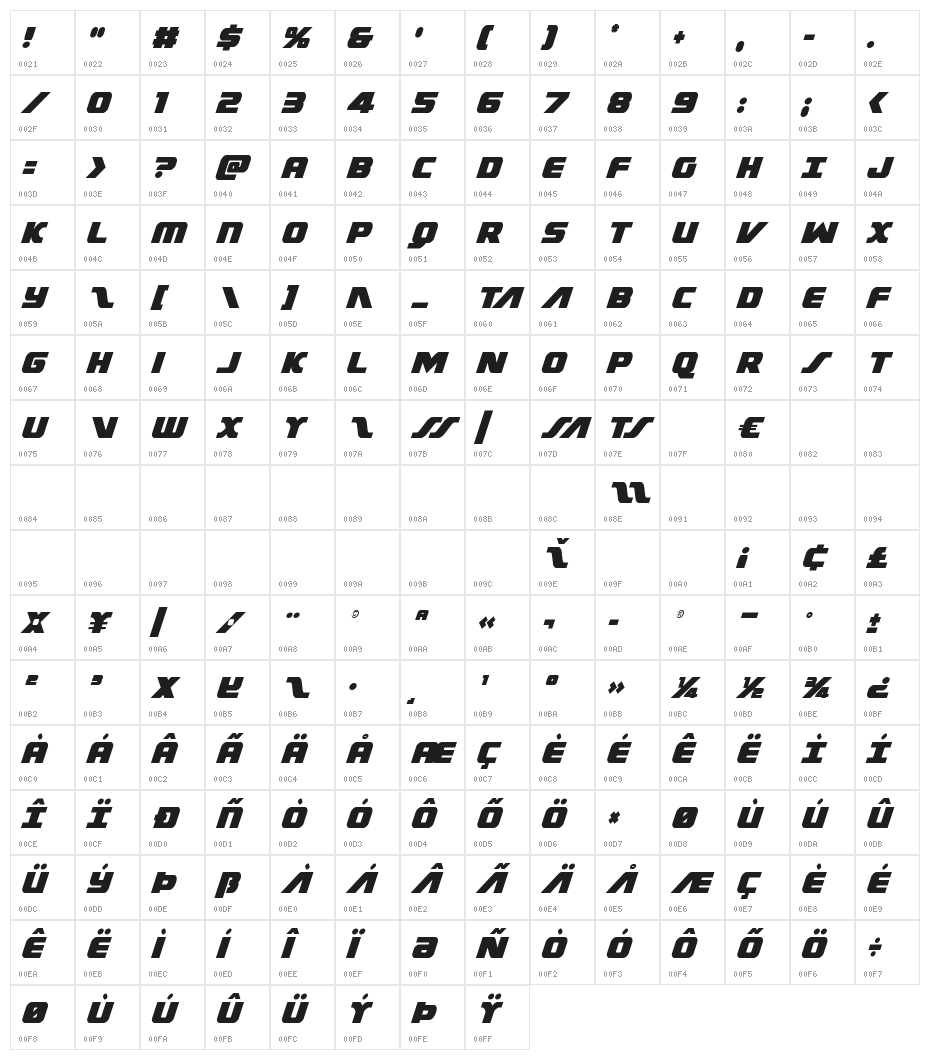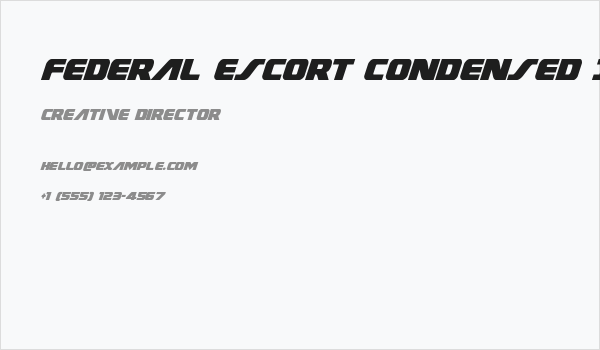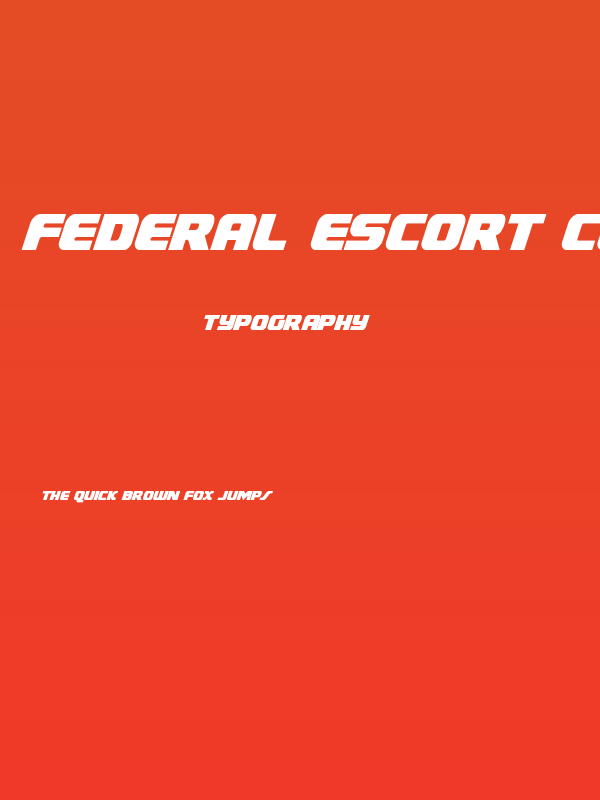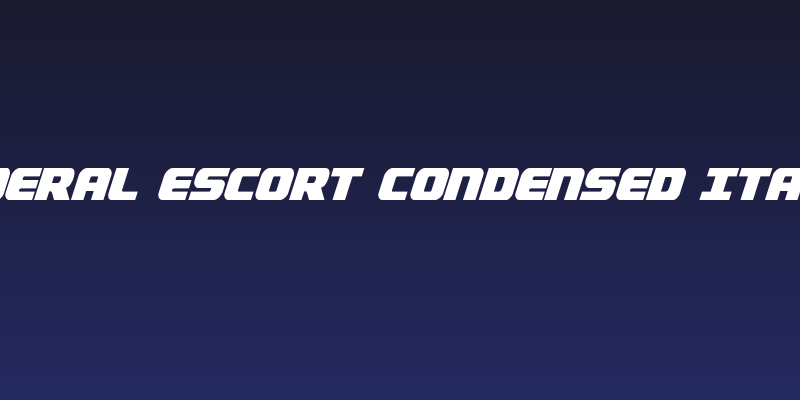
Federal Escort Condensed Italic Font
Federal Escort Condensed Italic Description
This font features a bold and dynamic style with a strong presence. The characters are condensed and italicized, giving a sense of motion and urgency. The strokes are thick, providing a high contrast that enhances readability from a distance. The angular cuts and sharp edges contribute to a modern and futuristic appearance. This typeface is particularly effective for creating impactful headlines and titles, where attention-grabbing text is essential. The numbers and special characters maintain the same bold and condensed style, ensuring consistency across all uses.
| Proposed Projects | Ideal for sports branding, automotive advertising, and dynamic poster designs. |